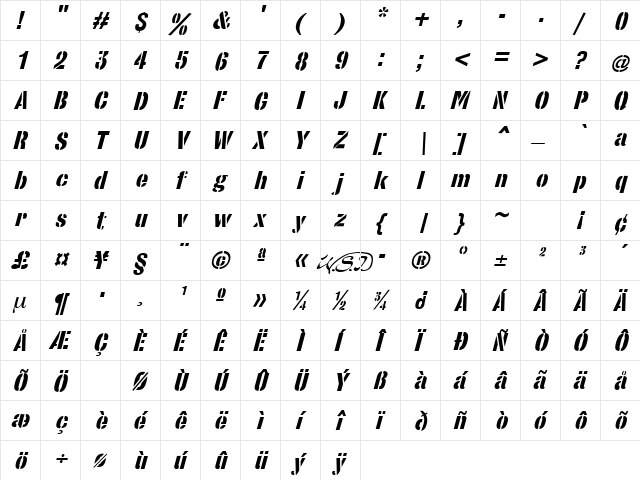
StencilSans Bold Italic Font Preview
Design Context for StencilSans Typeface
StencilSans has the rough pragmatism of spray-painted stencil signage, adding a raw, street-level authenticity to designs. Its italic angle brings a sense of urgency and motion to the letterforms. The heavy weight commands attention and anchors typographic hierarchies.
A strong choice for packaging that needs edge, warehouse aesthetics, and rough-and-ready visual identities.
Pro Tip: Use StencilSans at large sizes on packaging, posters, or apparel where the stencil cutaways read clearly. Avoid small sizes where those gaps become visual noise.